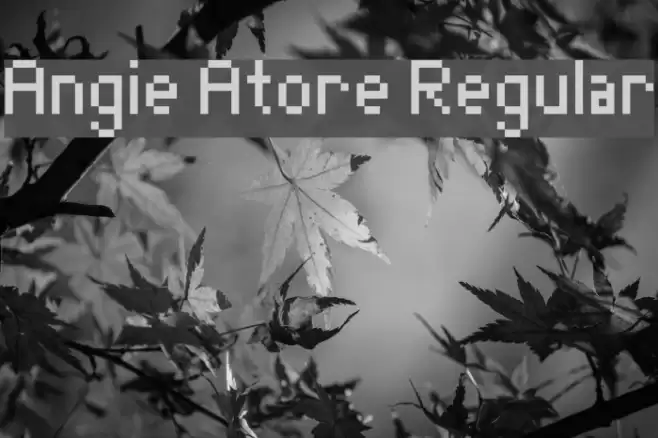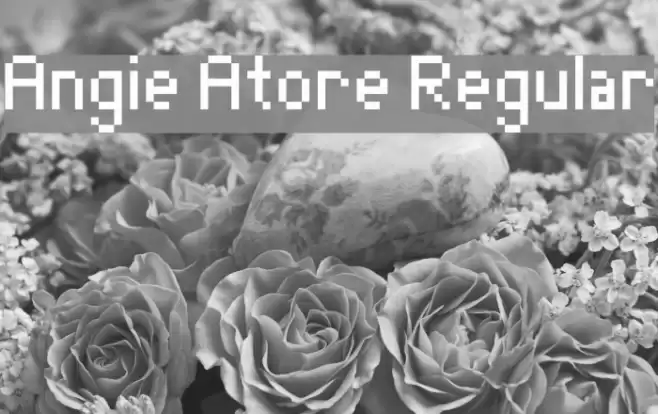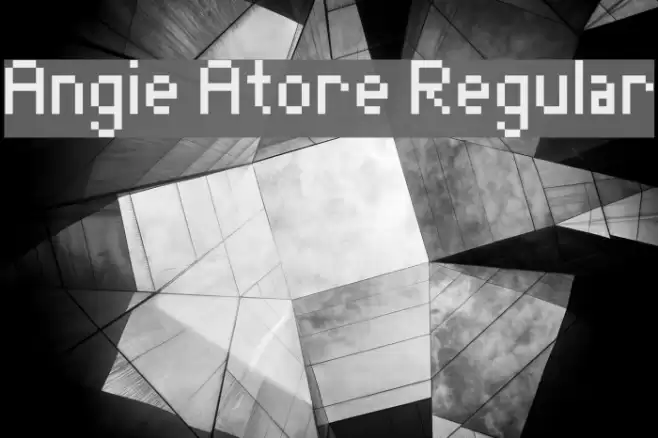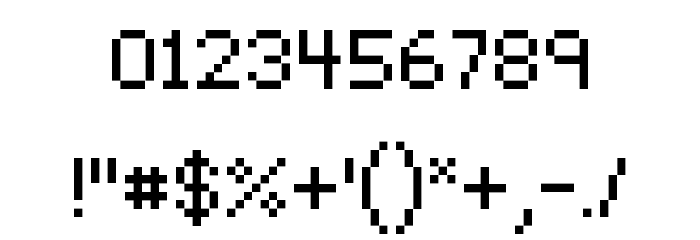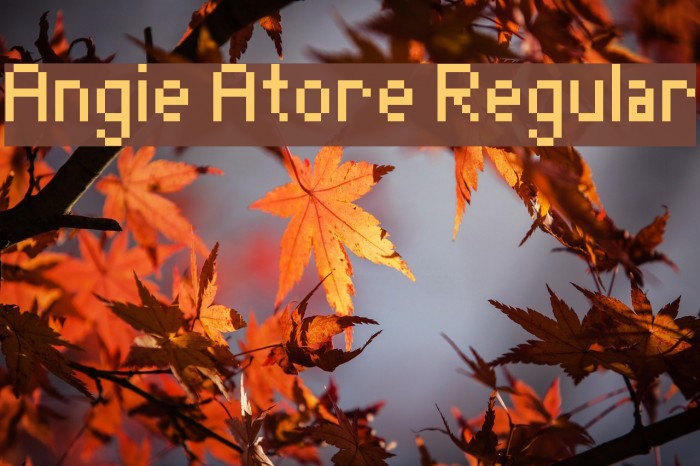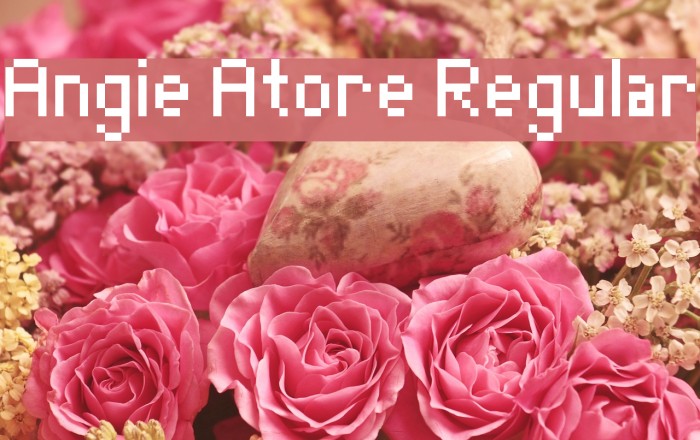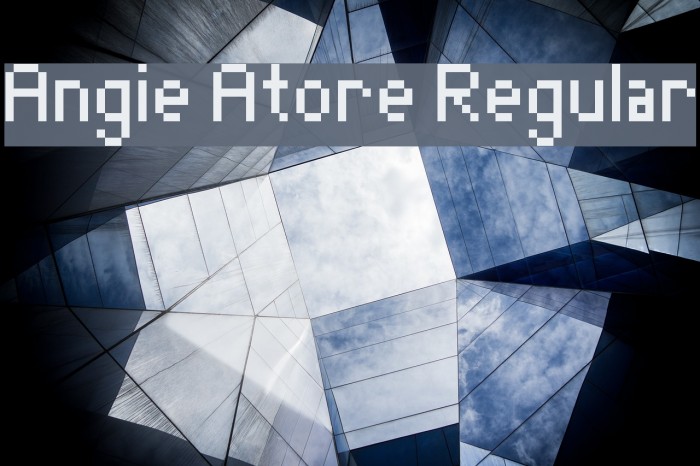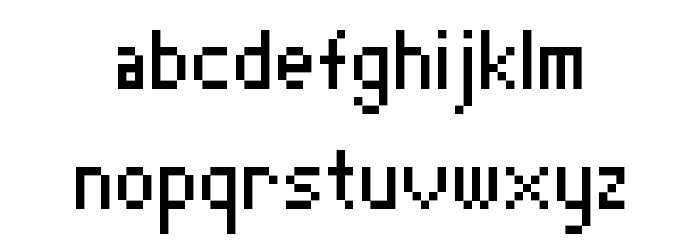
Angie Atore Regular Font
Angie Atore Regular Description
This font features a pixelated, blocky design reminiscent of early digital displays and retro video games. Each character is constructed with a grid-like precision, giving it a distinctly digital and technical appearance. The uppercase and lowercase letters maintain a consistent height, contributing to a uniform and cohesive look. Numbers and special characters follow the same pixelated style, ensuring visual harmony across all elements. The font's geometric structure and sharp edges make it ideal for projects that require a nostalgic or tech-inspired aesthetic.
A pixelated, retro-style font with a digital, blocky design from Uncategorized fonts.
- Proposed Projects: Ideal for retro video game graphics, tech-themed posters, digital art, and any project seeking a nostalgic digital aesthetic.
- Overall Style: Retro, Digital